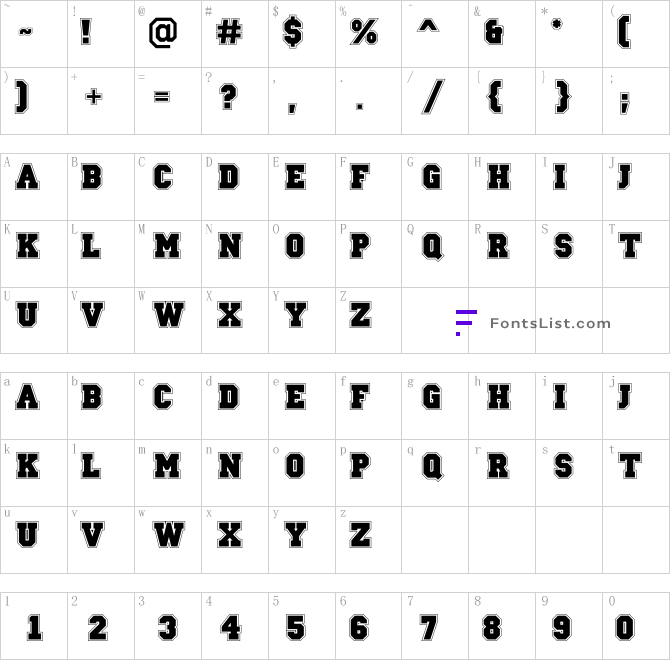
- Font Name:a_CampusGrav
a_CampusGrav-Bold.ttf is a very beautiful artistic font, a_CampusGrav-Bold.ttf is widely used in the design and printing of various books and pictures,a_CampusGrav-Bold.ttf has a strong visual impact,a_CampusGrav-Bold.ttf is a commonly used font in newspapers, magazines and books, and is used in posters, e-commerce Poster design, store design, logo design, font design and other fields.a_CampusGrav-Bold.